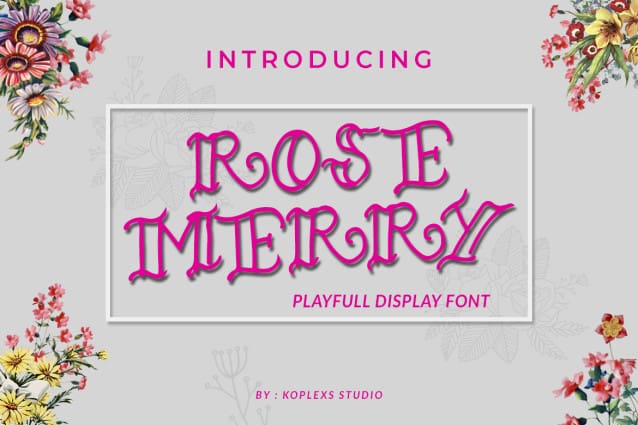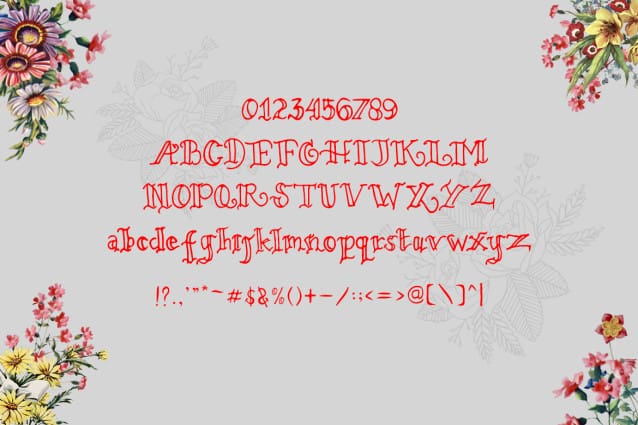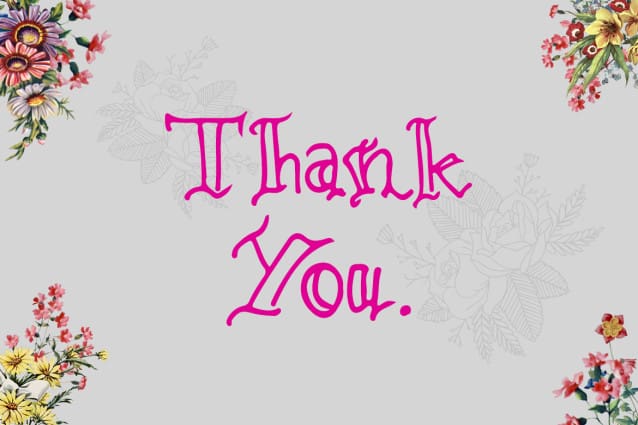
Rose Merry Font
Rose Merry Font is a trendy display font, described with a unique touch and stands out from other font styles, perfect for your favorite projects. Fall in love with her completely different and timeless style. Get it right now and use it to create spectacular designs!